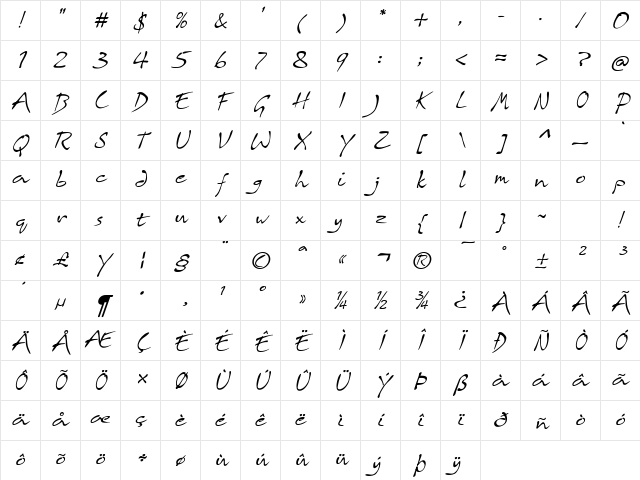
Brillig Gimble Regular
Foundry: ScholtzFonts
Designer: Anton Scholtz
Design Context for Brillig Gimble
Brillig Gimble is a composed and adaptable typeface that performs quietly and consistently across a wide range of design contexts.
Pro Tip: Use Brillig Gimble in both headline and body roles to test its range before committing to a single application.